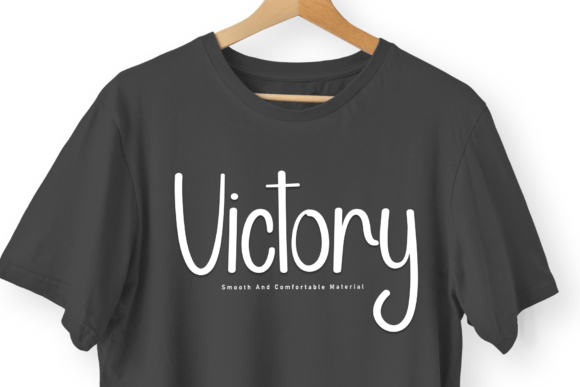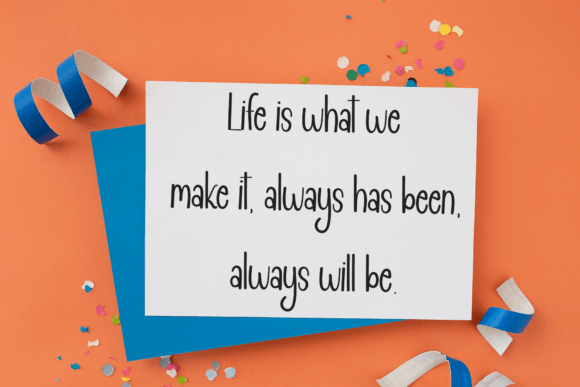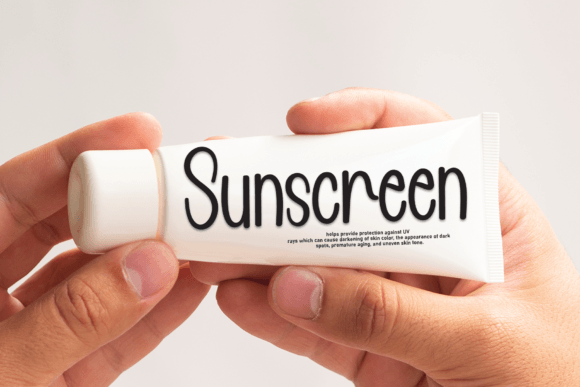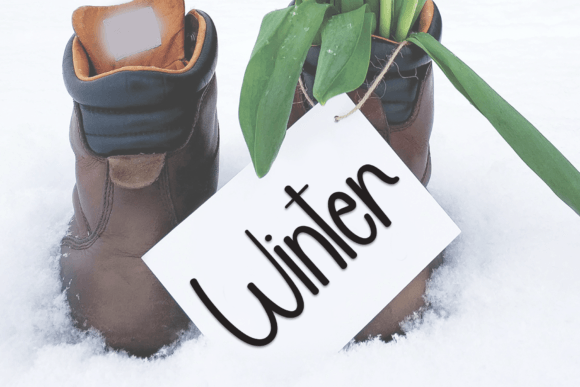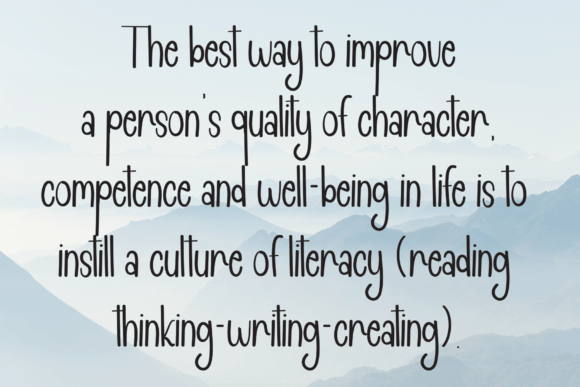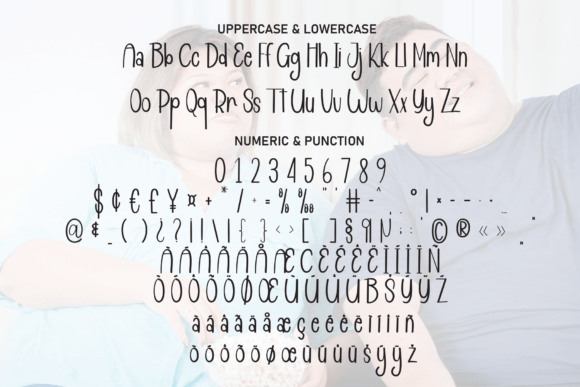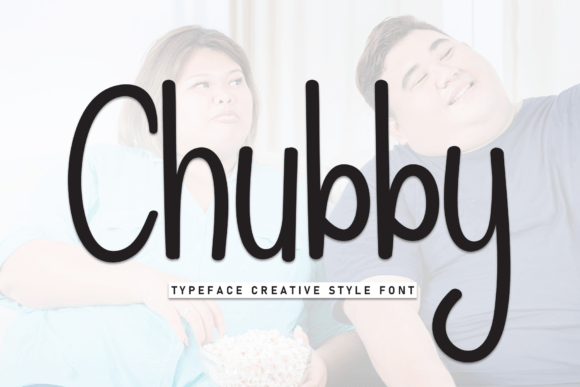
Discover the Delightful Chubby Font: Adding a Touch of Whimsy to Your Designs
Are you on the hunt for a font that exudes warmth, friendliness, and a dash of playfulness? Look no further than the Chubby Font! This charming handwritten font is designed to bring a smile to your face and a touch of magic to your creative projects. In this article, we’ll dive into the world of Chubby Font, exploring its unique characteristics, uses, and benefits for designers and crafters alike.
The Charm of Chubby Font
Chubby Font is a whimsical handwritten font that embodies the perfect blend of sweetness and friendliness. Its cute and playful allure makes it an excellent choice for a wide range of design applications, from wedding invitations and cards to social media graphics and craft projects. The font’s unique charm lies in its ability to evoke a sense of nostalgia and warmth, making it perfect for designers and crafters looking to add a personal touch to their creations.
Key Features of Chubby Font
- Whimsical Handwritten Style: Chubby Font boasts a delightful handwritten style that’s both playful and elegant.
- Unique Character Set: The font features a wide range of characters, including uppercase and lowercase letters, numbers, and punctuation marks.
- Easy to Read: Despite its playful nature, Chubby Font remains easy to read, making it perfect for body text and headings.
- Highly Versatile: Chubby Font can be used for a variety of design applications, from digital projects to print materials.
Uses for Chubby Font
Chubby Font is an incredibly versatile font that can be used for a wide range of design projects, including:
- Wedding Invitations: Add a touch of whimsy and romance to your wedding invitations and stationery.
- Cards and Greeting Cards: Create personalized and playful cards for special occasions.
- Social Media Graphics: Use Chubby Font to create engaging and eye-catching social media graphics.
- Craft Projects: Add a personal touch to your craft projects, such as scrapbooking, DIY signs, and more.
Chubby Font offers a range of benefits for designers and crafters, including:
- Time-Saving: With Chubby Font, you can create professional-looking designs in no time, saving you time and effort.
- Unique Designs: Chubby Font allows you to create unique and eye-catching designs that stand out from the crowd.
Tips for Using Chubby Font
To get the most out of Chubby Font, here are a few tips to keep in mind:
- Experiment with Colors: Chubby Font looks great in a variety of colors, so don’t be afraid to experiment and find the perfect hue for your design.
- Mix and Match: Combine Chubby Font with other fonts and design elements to create a unique and visually appealing design.
- Keep it Simple: Don’t overcomplicate your design – Chubby Font is perfect for simple, yet effective designs.
In conclusion, Chubby Font is a delightful and versatile font that’s perfect for designers and crafters looking to add a touch of whimsy to their creations. With its unique charm, ease of use, and range of benefits, Chubby Font is an excellent choice for a wide range of design applications. So why not give Chubby Font a try and see how it can bring a smile to your face and a touch of magic to your designs?